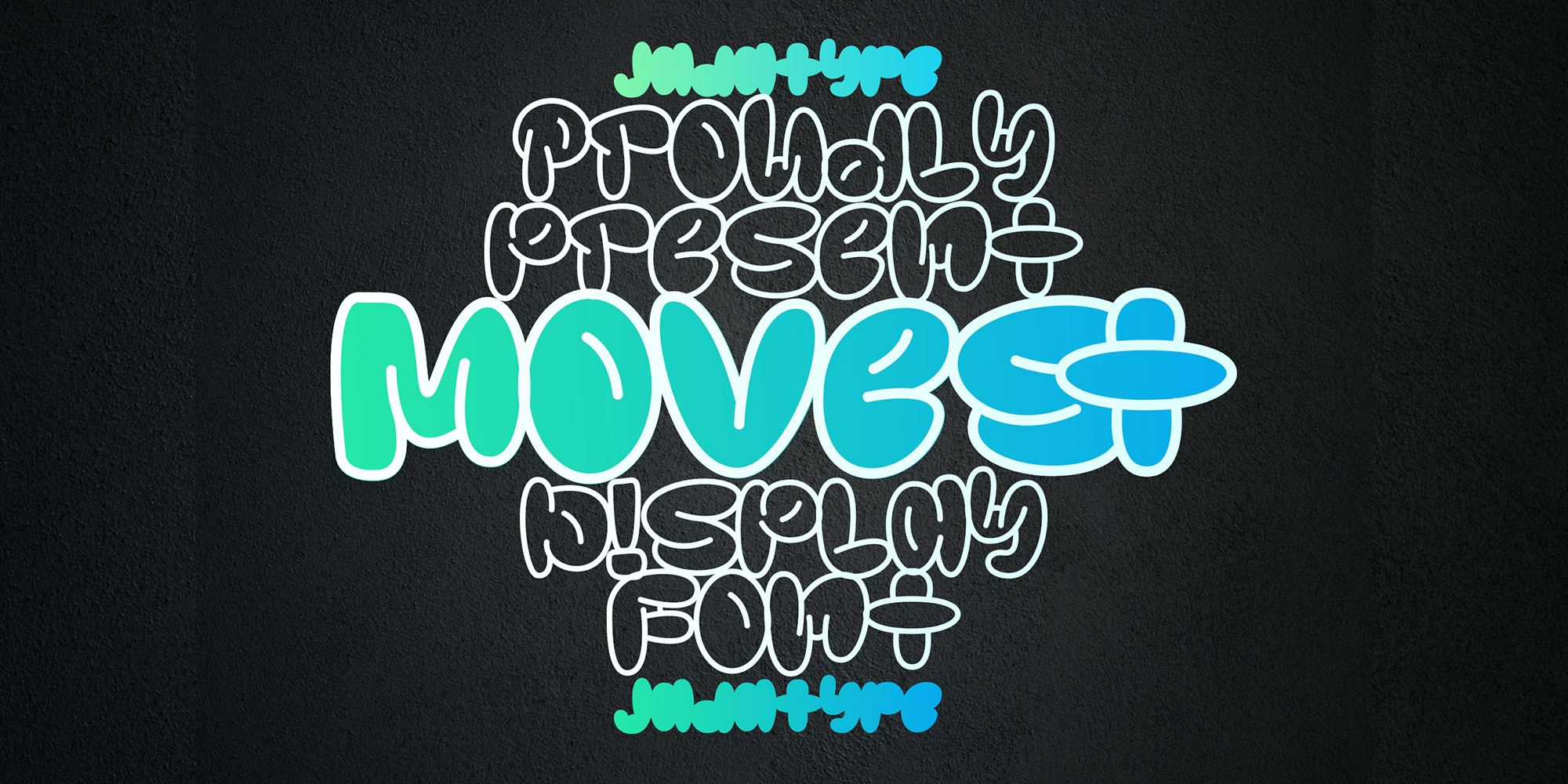
The Movest Outline Font Free Download is ideal for posters, social media graphics, branding, and product packaging, offering a playful, graffiti-inspired aesthetic.
This font is exciting because its bubbly, hand-drawn outline style with a fun, bouncy vibe adds a vibrant, street-art energy to any design.
The Movest Outline family includes Regular and Outline styles, providing versatile options for creative projects.
Capture the essence of urban creativity with the Movest Outline Font Free Download, a display typeface designed by Jada Akbal and published by Jadatype in 2023. Known for its playful, bubble-like design with a graffiti-inspired flair, Movest Outline is perfect for crafting eye-catching headlines, logos, or promotional materials. With support for multiple languages, including English, Javanese, and Italian, it offers 200+ glyphs in OTF, TTF, and WOFF formats for seamless use across print and digital platforms. Ideal for ads, posters, or branding, its lively aesthetic ensures bold visuals. As 2025 design trends embrace expressive, street-style typography, downloading Movest Outline Font Free Download keeps your work fresh and dynamic. Test it today at cufonfonts.com to explore its potential, and consider purchasing at jadatype.gumroad.com for commercial use to fully leverage its vibrant style.